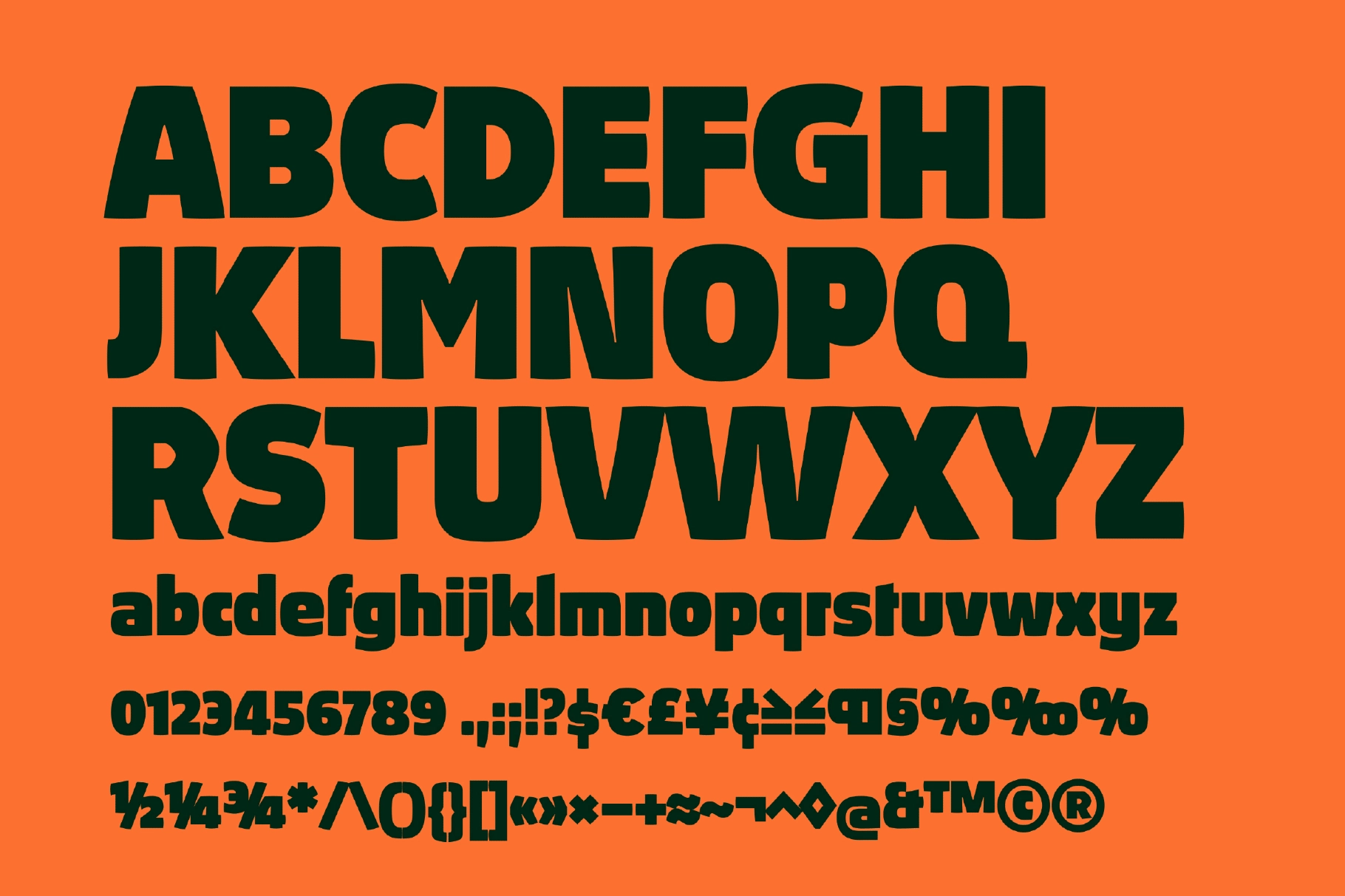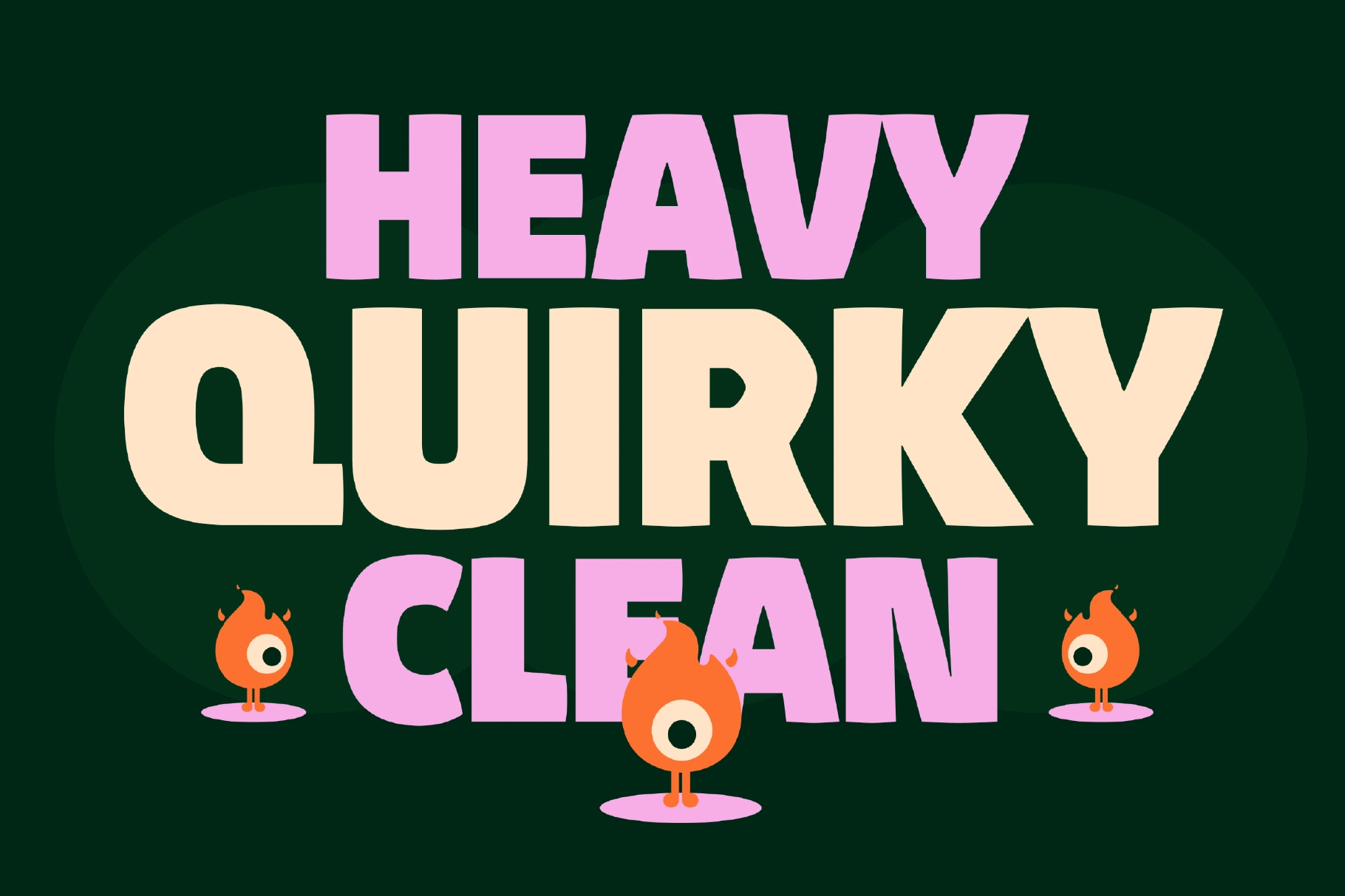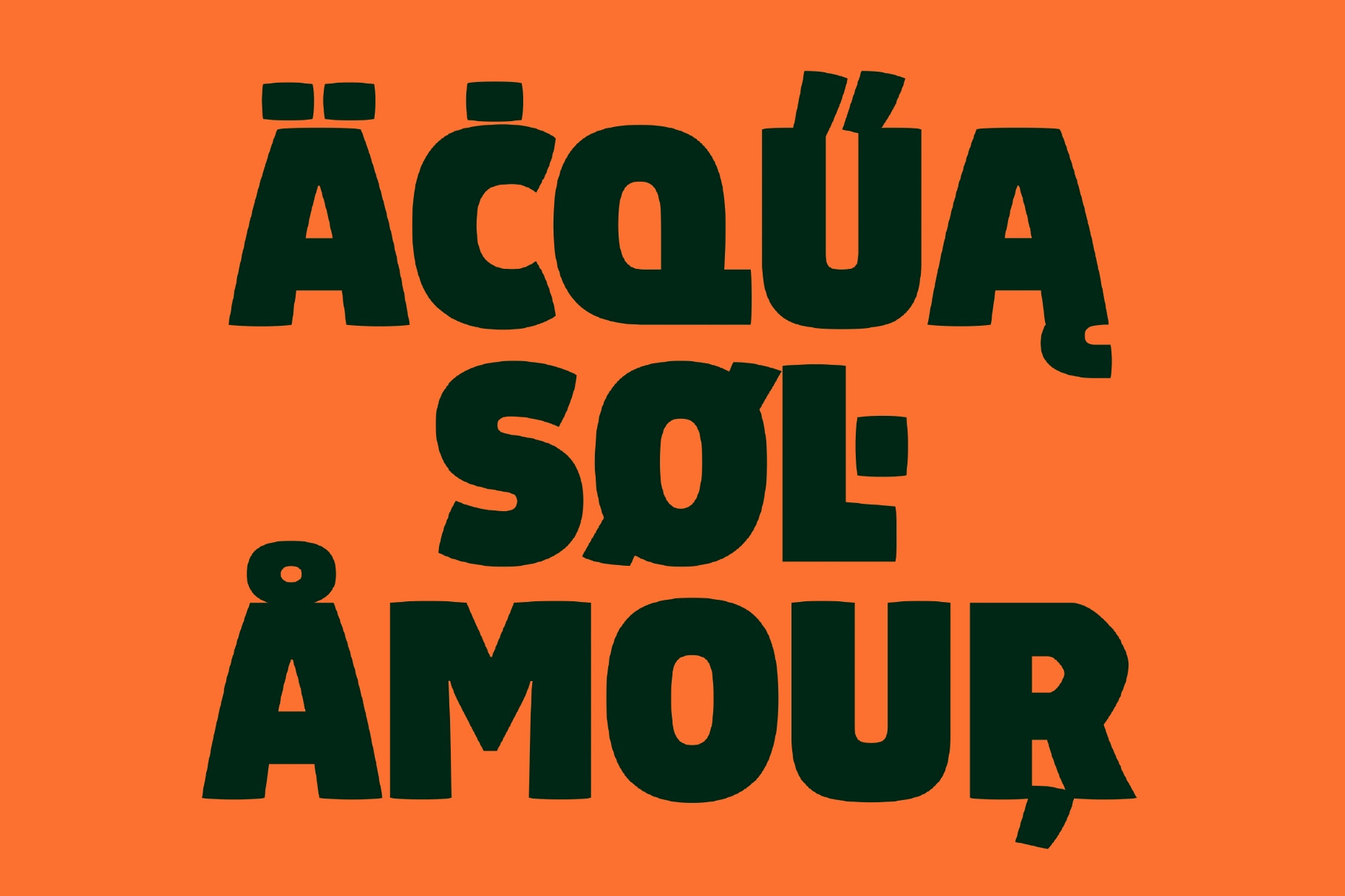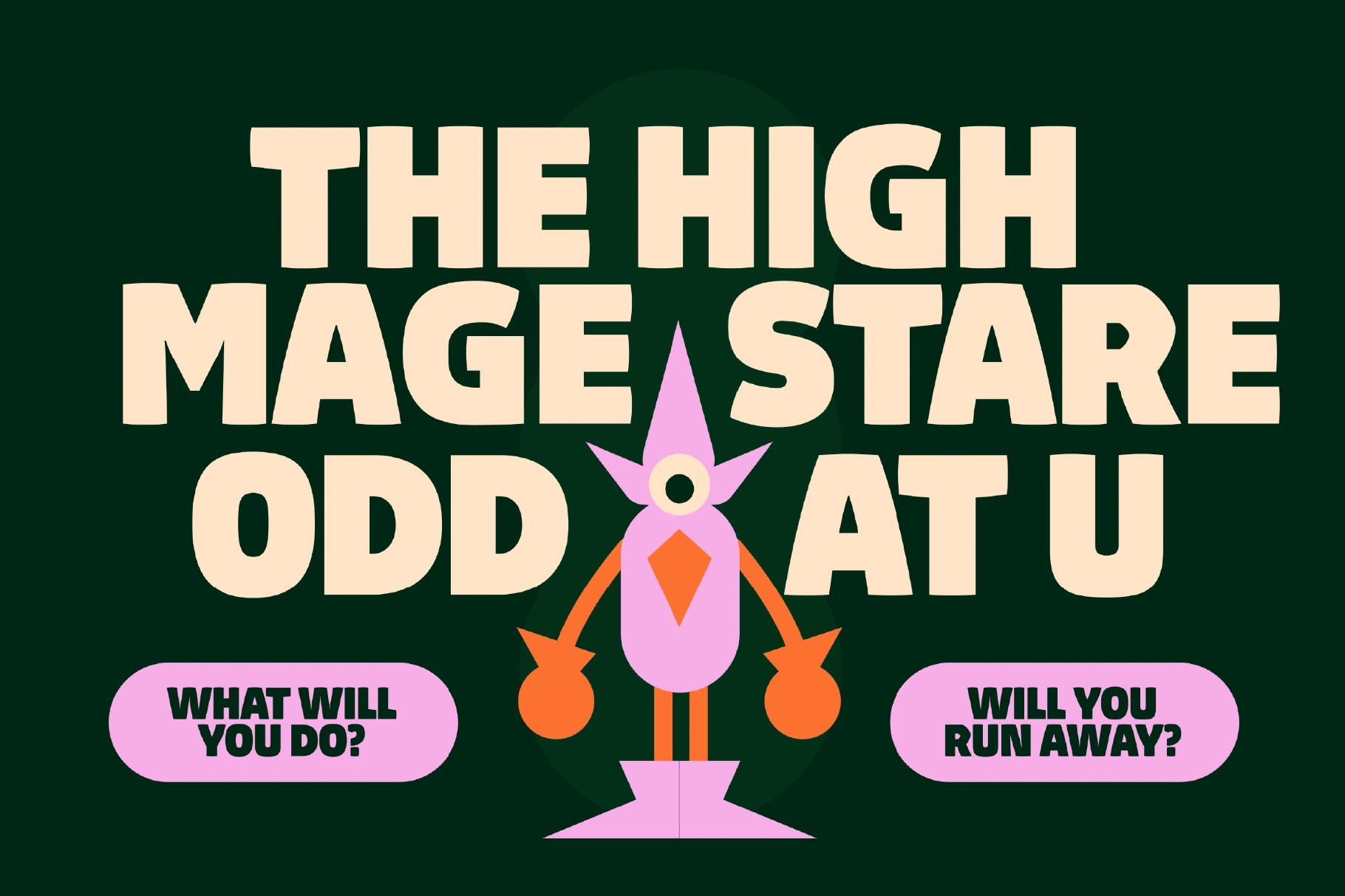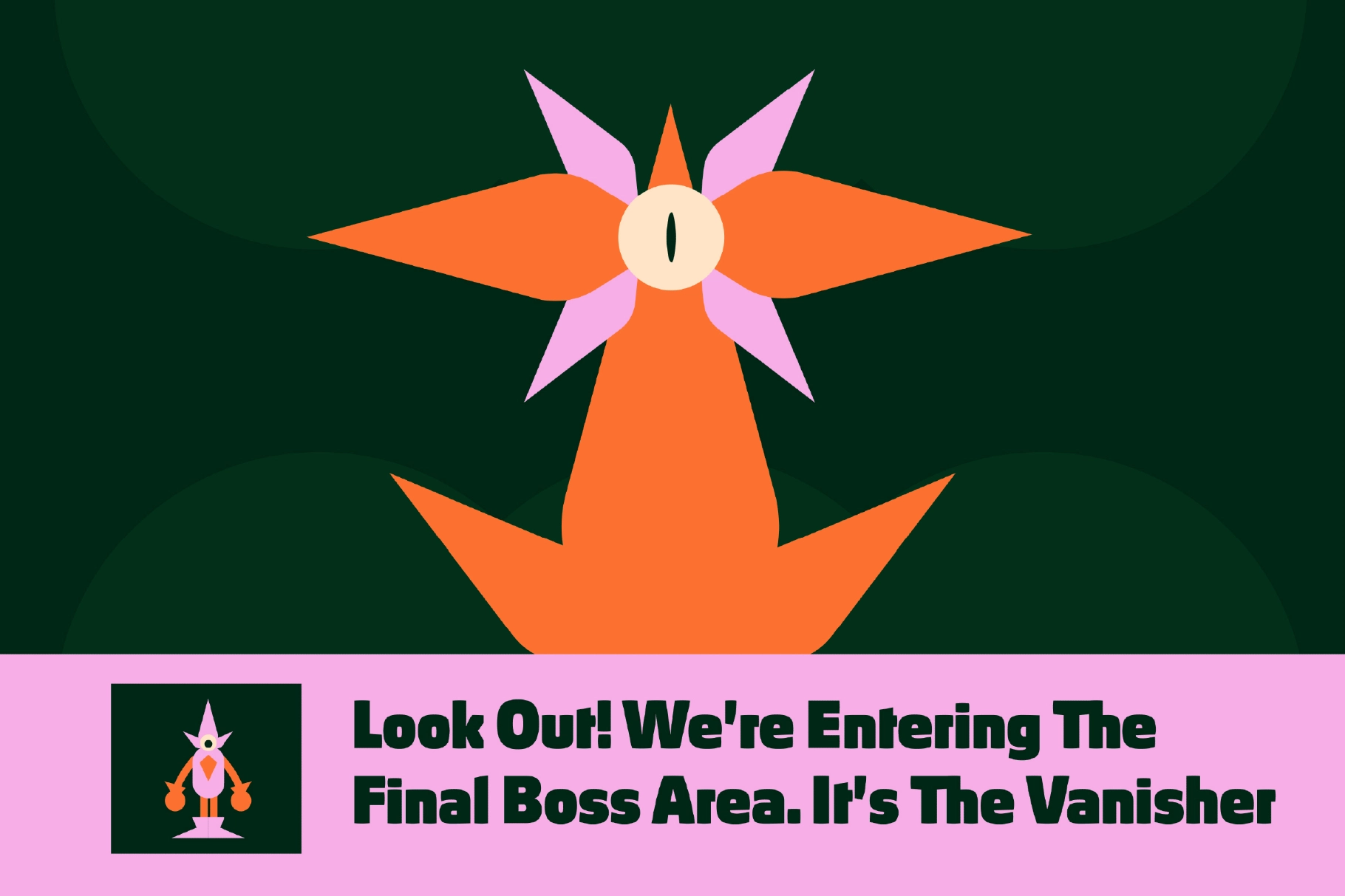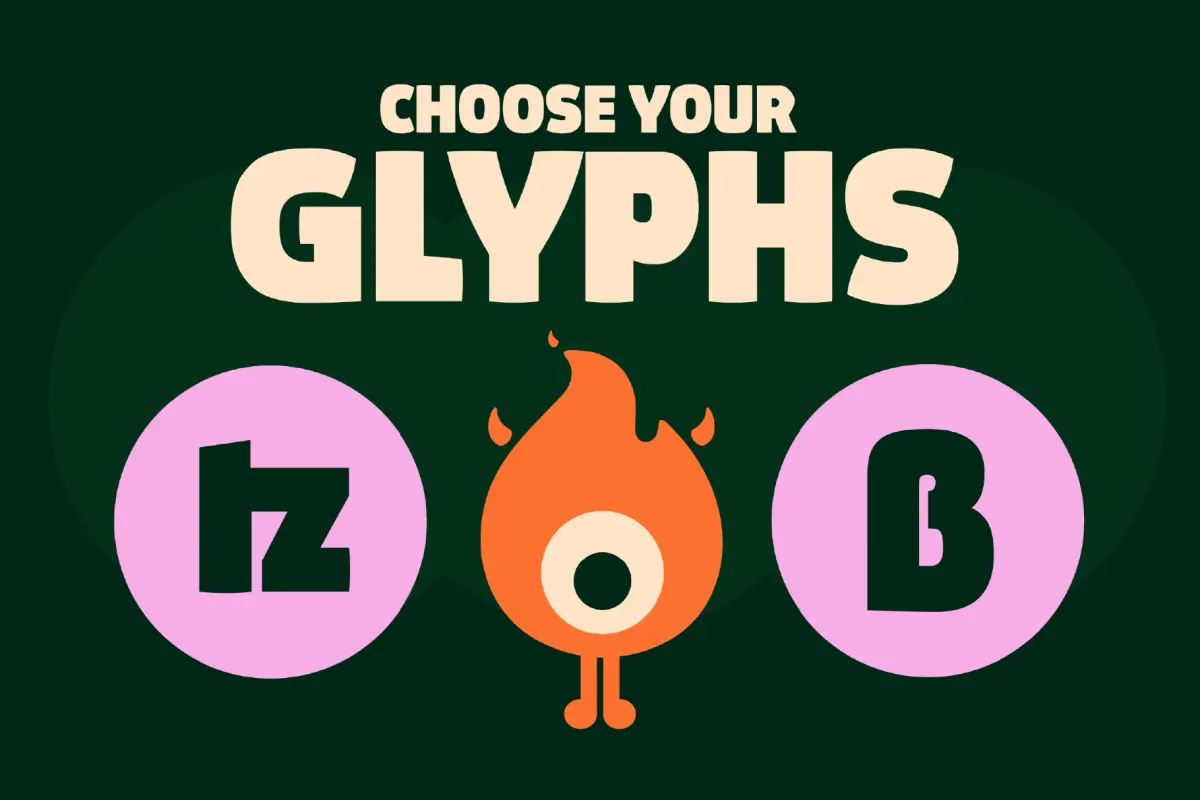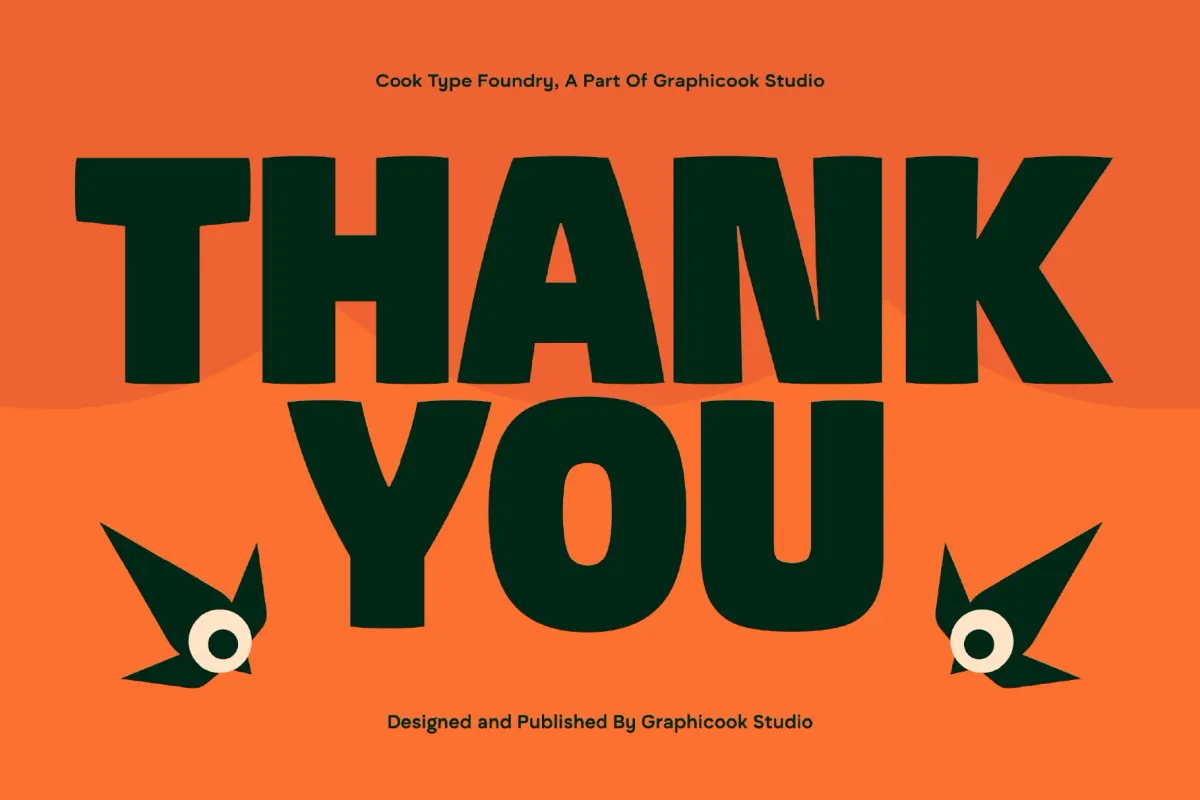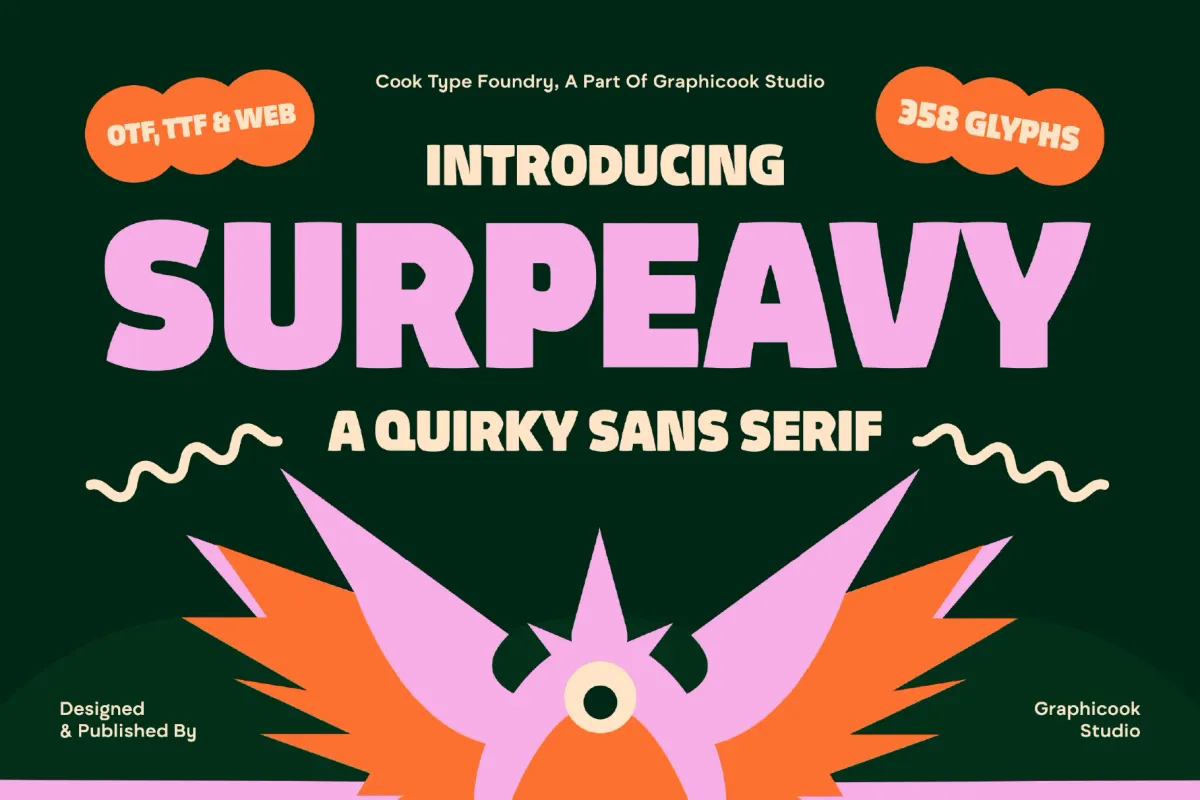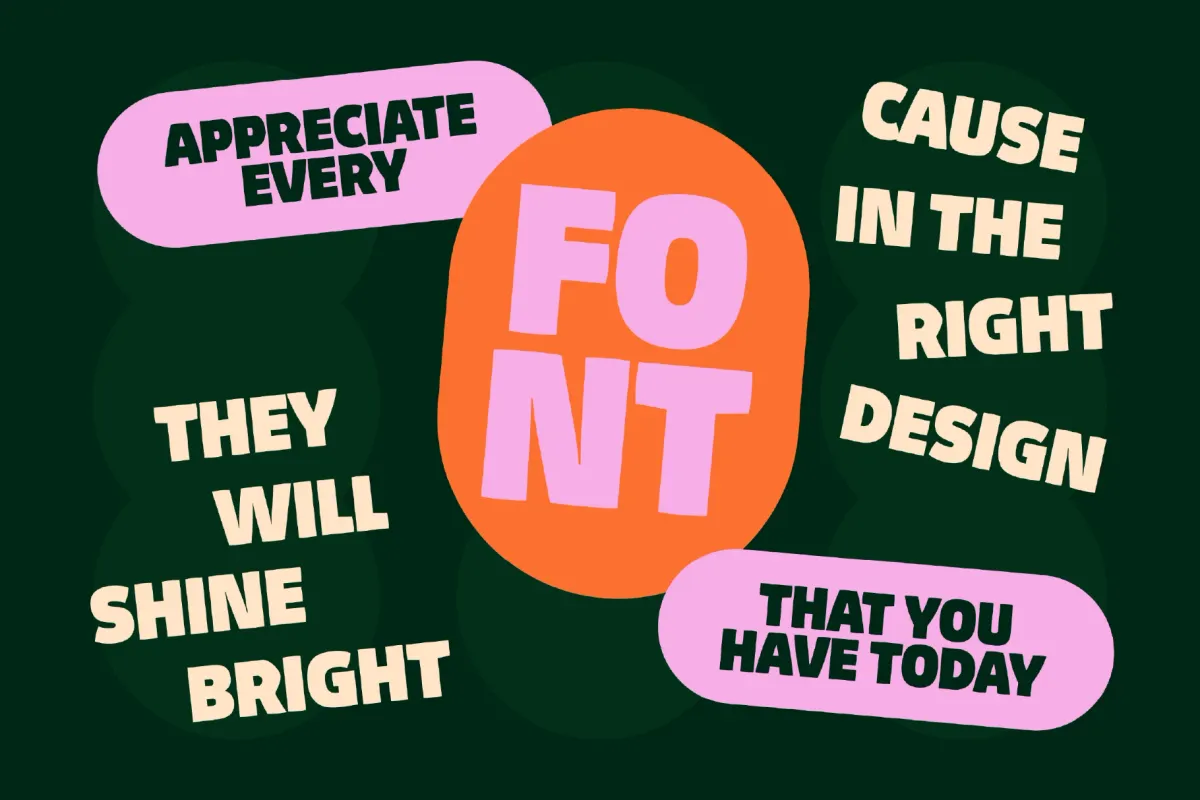
Surpeavy Font
Surpeavy
Surpeavy is a quirky and playful font with a unique, expressive style. Ideal for designs with a fun, friendly, and artistic tone.